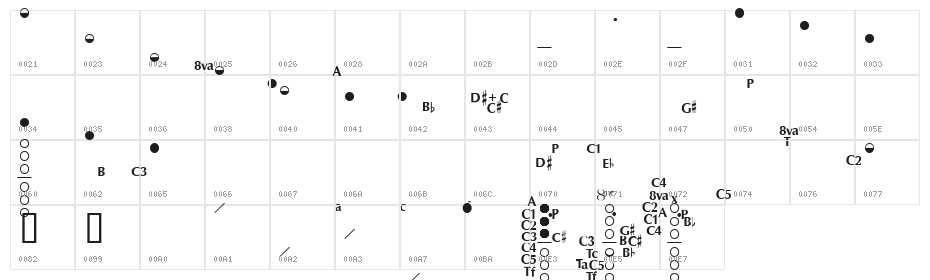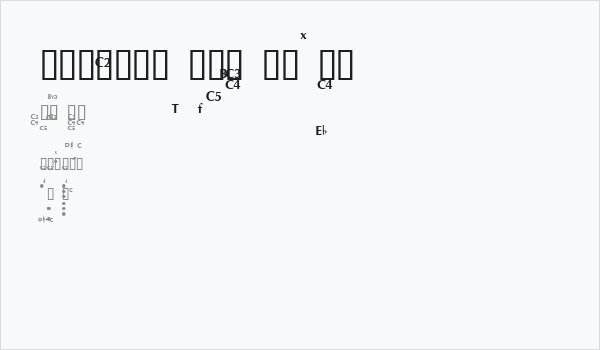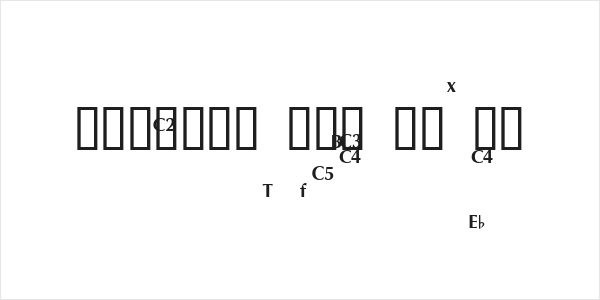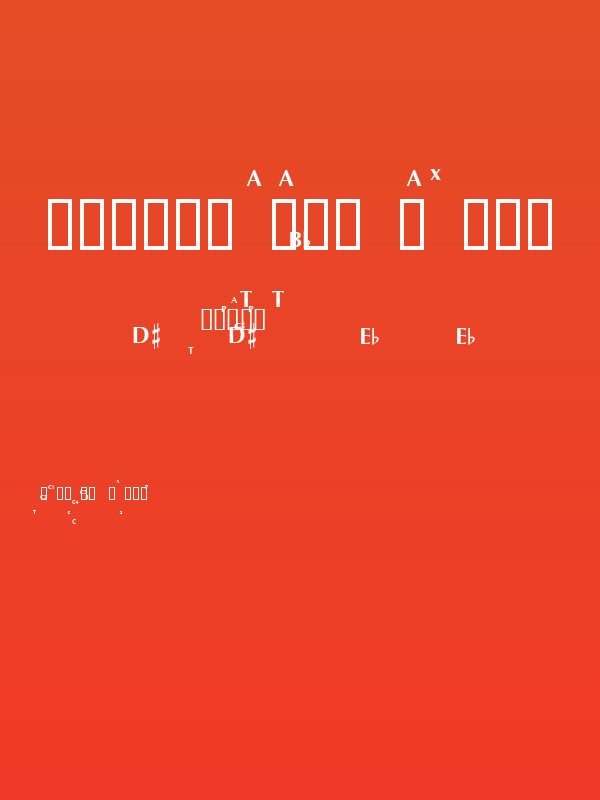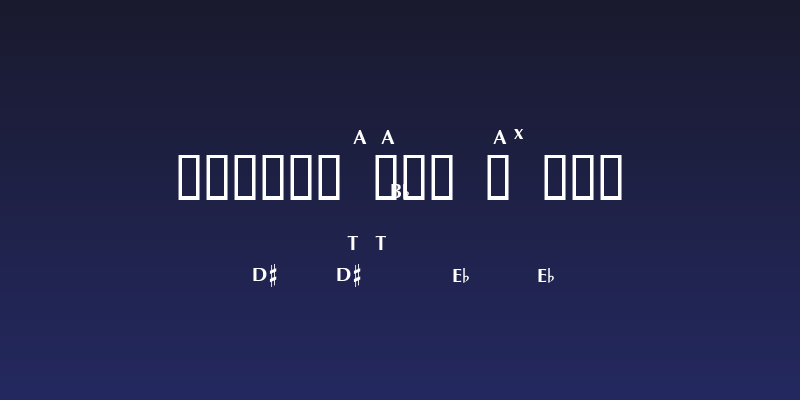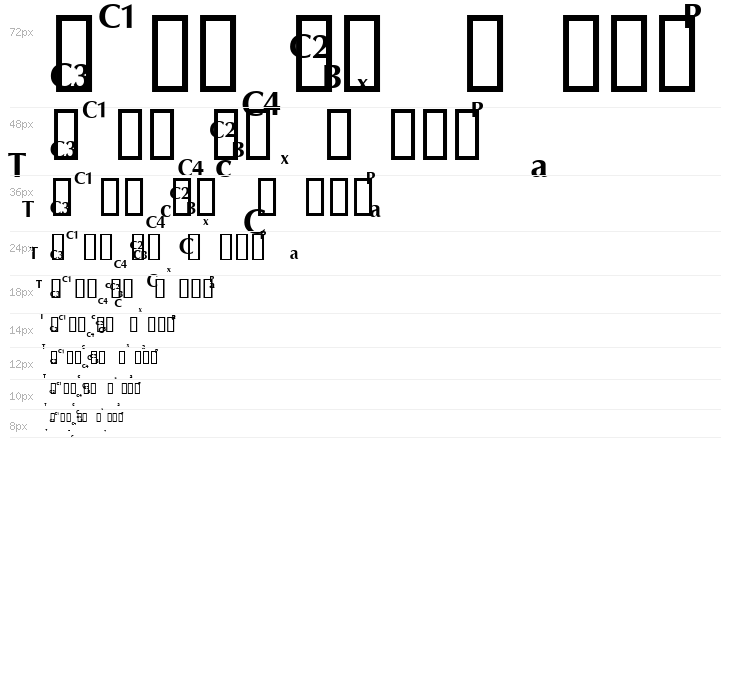
Woodwind Tablature Sax Euro Font
Woodwind Tablature Sax Euro Description
A specialized pictographic font designed to represent woodwind fingering charts, using geometric shapes such as rectangles, circles, and lines to indicate finger positions and key presses. The font includes musical annotations and symbols for instructional or notational purposes.
| Overall Style | Functional, instructional, schematic |
| Use Case | Music notation, educational diagrams, instructional graphics |
| Proposed Projects | Music education materials, woodwind fingering charts, instructional books, sheet music supplements, digital learning apps. |